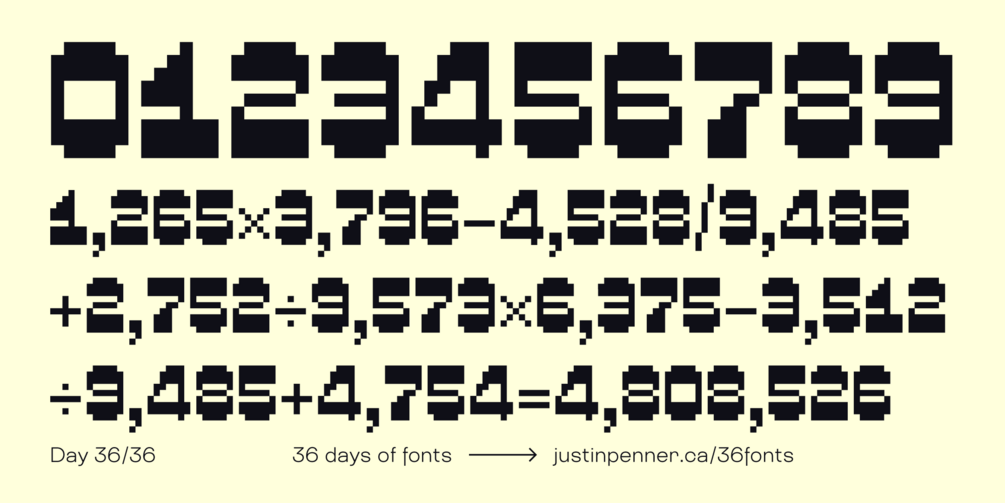
36 Days of Fonts: Day 36
Snap
I was thinking about how to do reverse contrast in a pixel font, and it ended up turning into somewhat of a pixel reinterpretation of Pinch from day 29.